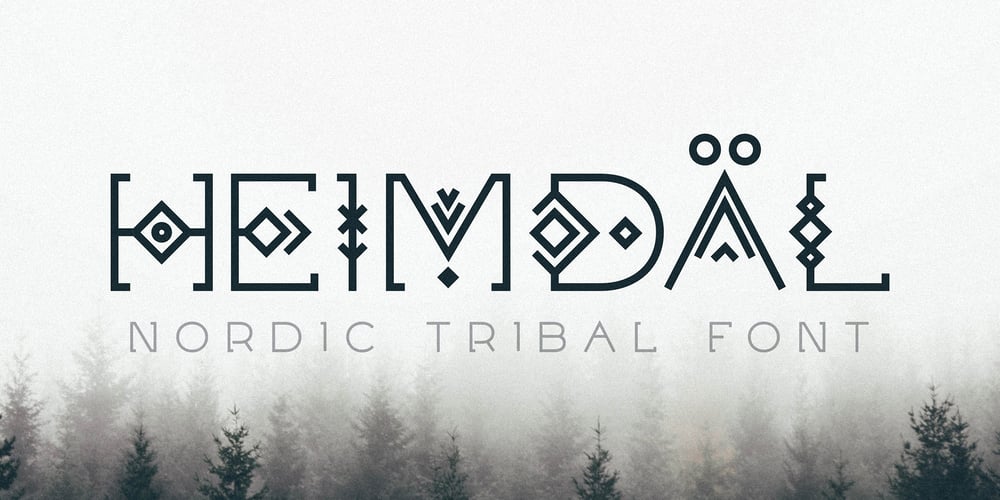
Heimdal Font Family was designed by Andrew Pixel and published by AndrewPixel. Heimdal contains 1 styles and family package options. Introducing Heimdäl – a tribal display font inspired by the Nordic runes and the Viking era.This tribal font is meant to be used for headlines, titles, logos, posters, flyers, etc – anything that requires a unique geometric typeface with the tribal motifs.The font has uppercase and lowercase characters, special glyphs, and multilingual support.